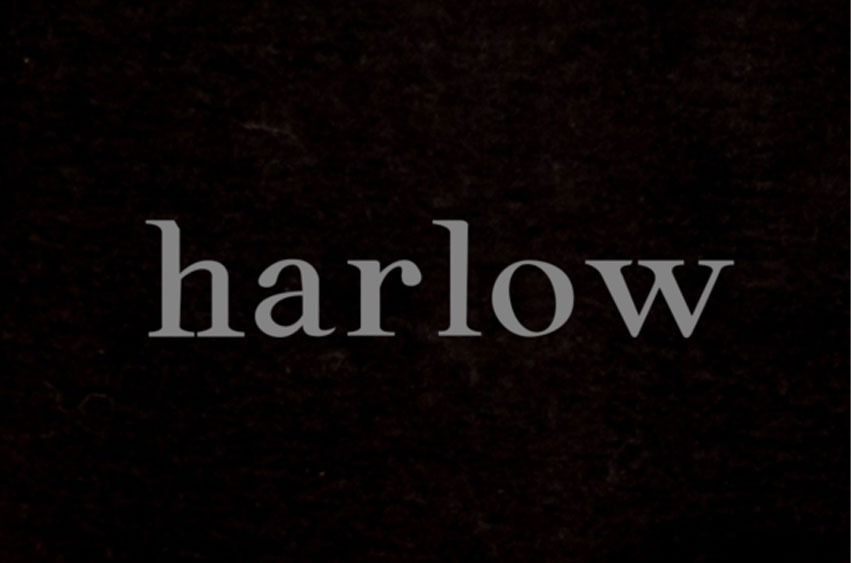
Harlow Font
Harlow Font is a classy and modern serif font that has a unique style and neat look.
This typeface is perfect for elegant and luxurious logos, book or movie title designs, fashion brands, magazines, clothing, fonts, quotes, and more. Use it to add a unique style to any of your design projects!